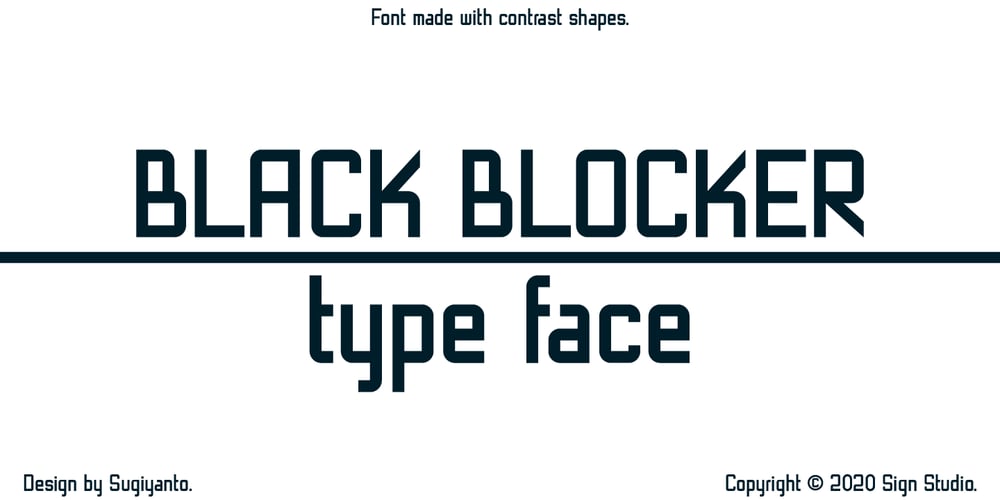
Black Blocker Font Family was designed by Sugi Yanto and published by Sign Studio. Black Blocker contains 1 styles and family package options. This is Black Blocker, a font that can make contrast to the text.Having a corner of the box on the inside that becomes unique.It is suitable for posters, titles,banding, tags, quotes and more.Developed from the sans-syerif family makes it easy to apply to designs.Reach many languages with Adobe CE standards (over 331 characters).Take it to make your design be different.